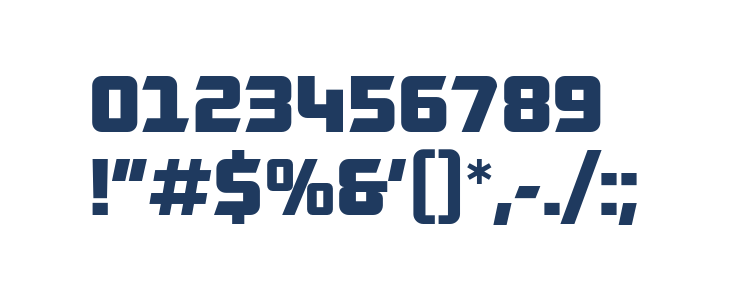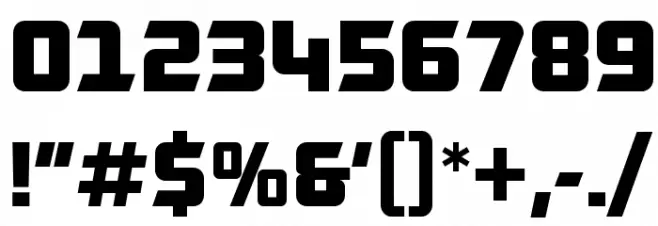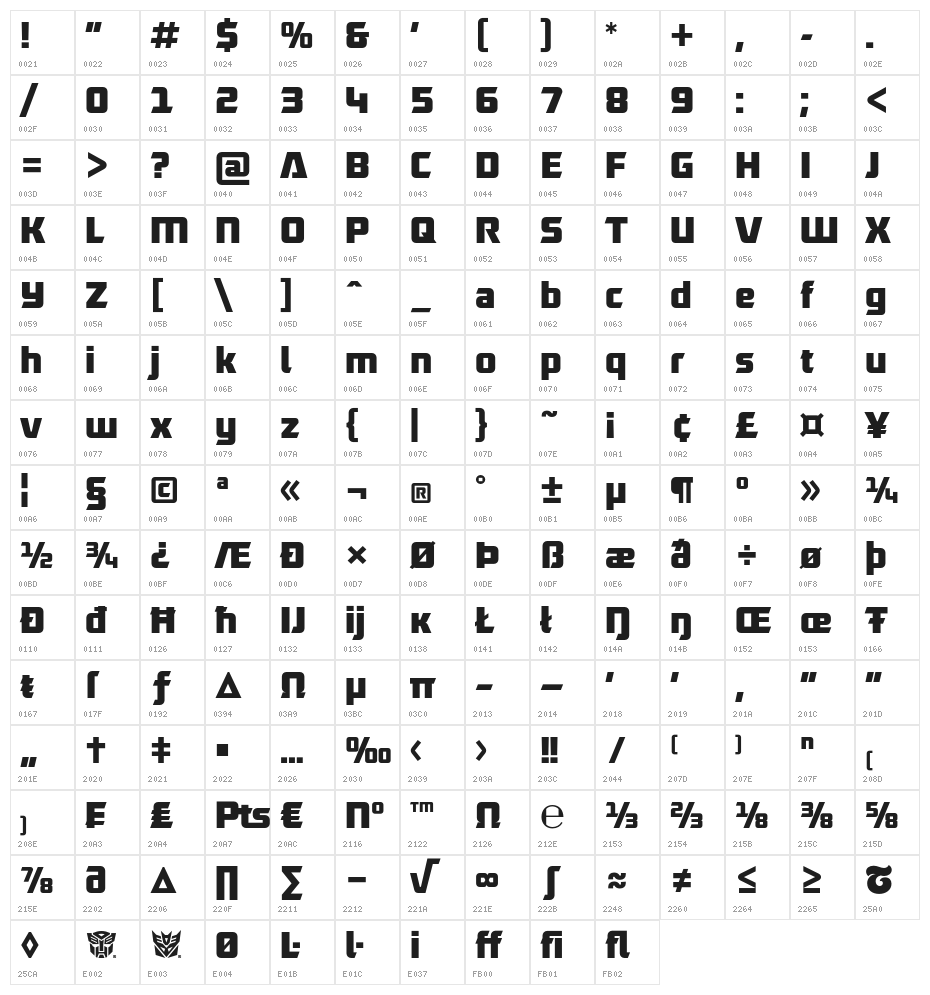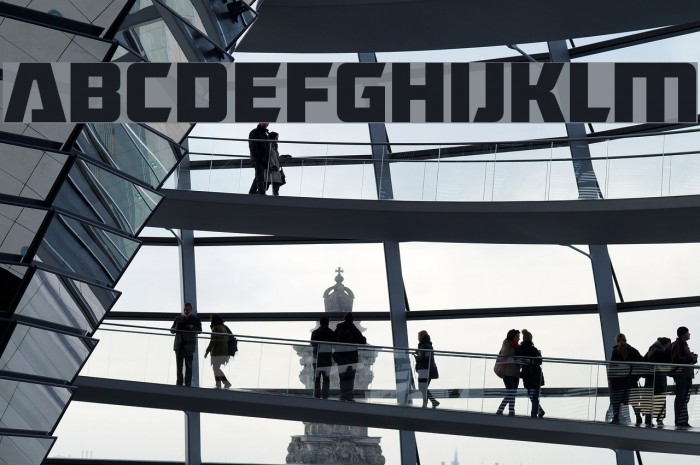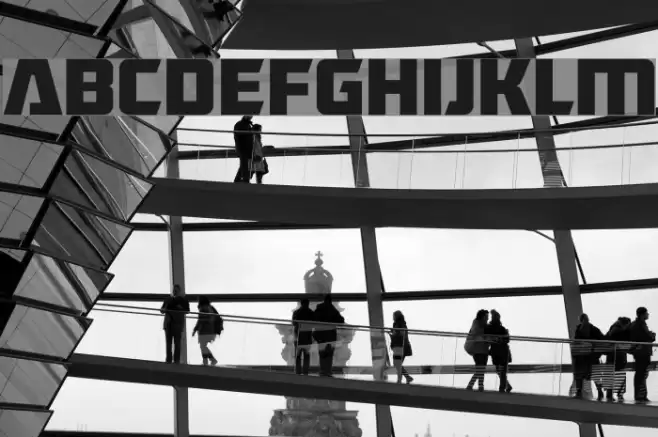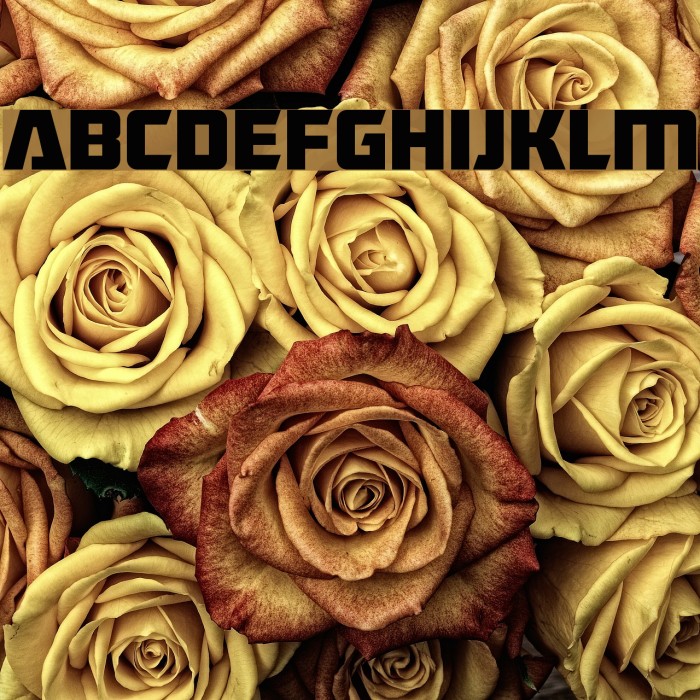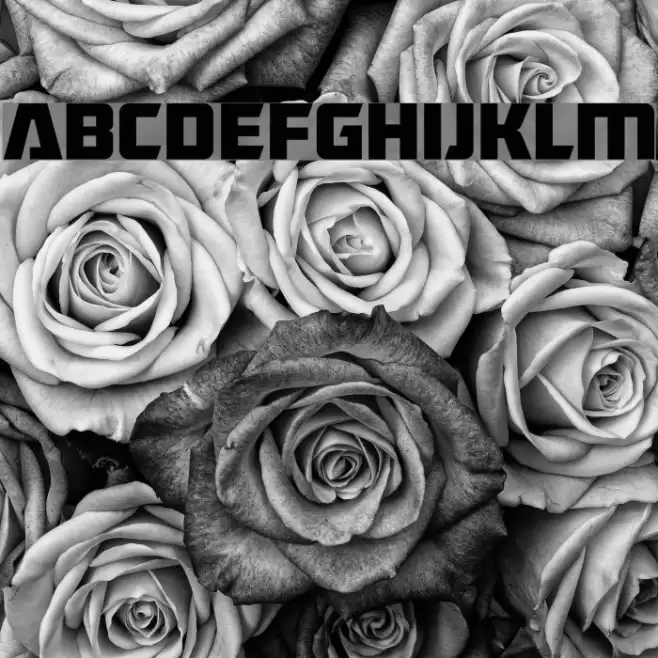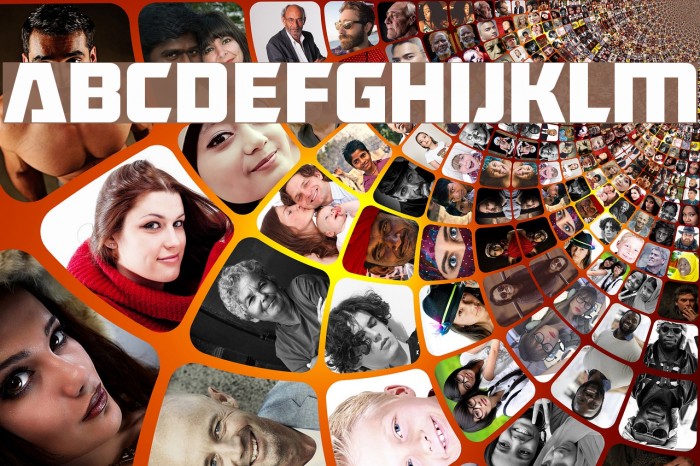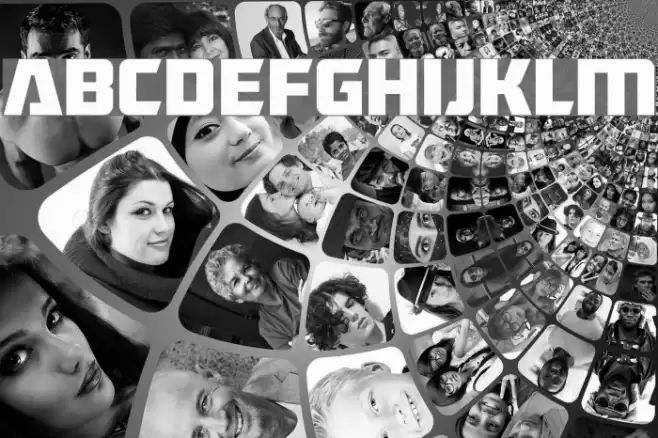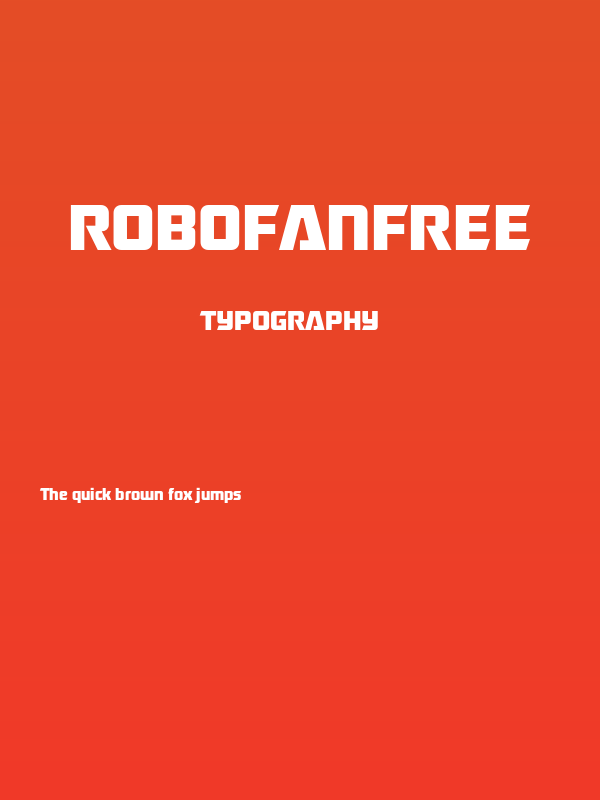
RobofanFree Font
RobofanFree Description
This font features a bold and futuristic design, characterized by its blocky and geometric letterforms. The uppercase and lowercase letters maintain a consistent width, giving it a uniform appearance. The sharp angles and straight lines contribute to its modern and tech-inspired aesthetic. The numerals and special characters follow the same design principles, ensuring cohesion across all glyphs. Its strong presence makes it suitable for attention-grabbing headlines and logos. The font's style is reminiscent of digital and robotic themes, making it ideal for projects that require a contemporary and edgy look.
| Proposed Projects | Ideal for technology branding, video game titles, futuristic posters, and digital media. |